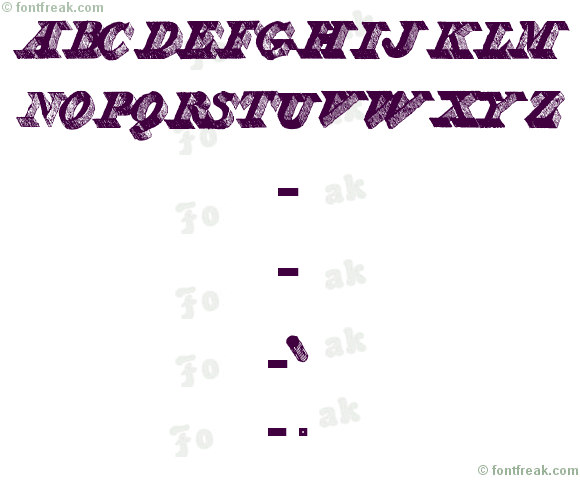
Engravier_Initials
About Engravier
Engravier, designed by Paul Lloyd, is a striking display font that falls within the decorative category. This typeface captures a unique blend of boldness and sophistication, making it an ideal choice for projects that require a touch of elegance. The font features a distinctive stroke weight that varies throughout, providing a sense of depth and dimension. The contrast between thick and thin lines adds visual interest, while the intentional spacing between letters ensures legibility, even in larger sizes. Engravier is characterized by its decorative elements, including sharp angles and a slightly distressed texture, which enhances its artistic flair.
This font excels in several specific use cases. It's perfect for wedding invitations, where its ornate style can elevate the overall aesthetic. Additionally, Engravier works beautifully on movie posters, creating an eye-catching title that demands attention. Its unique characteristics also make it suitable for restaurant menus, particularly in upscale dining establishments, where a touch of refinement is essential. Graphic designers will find this font ideal for branding projects, especially those aiming to convey a sense of tradition and craftsmanship. Content creators can utilize Engravier for social media graphics that require an impactful visual statement.
What sets Engravier apart is its ability to marry artistic expression with functionality. Its unique visual characteristics, combined with its versatility across different applications, make it a standout choice for anyone looking to add a sophisticated touch to their designs.